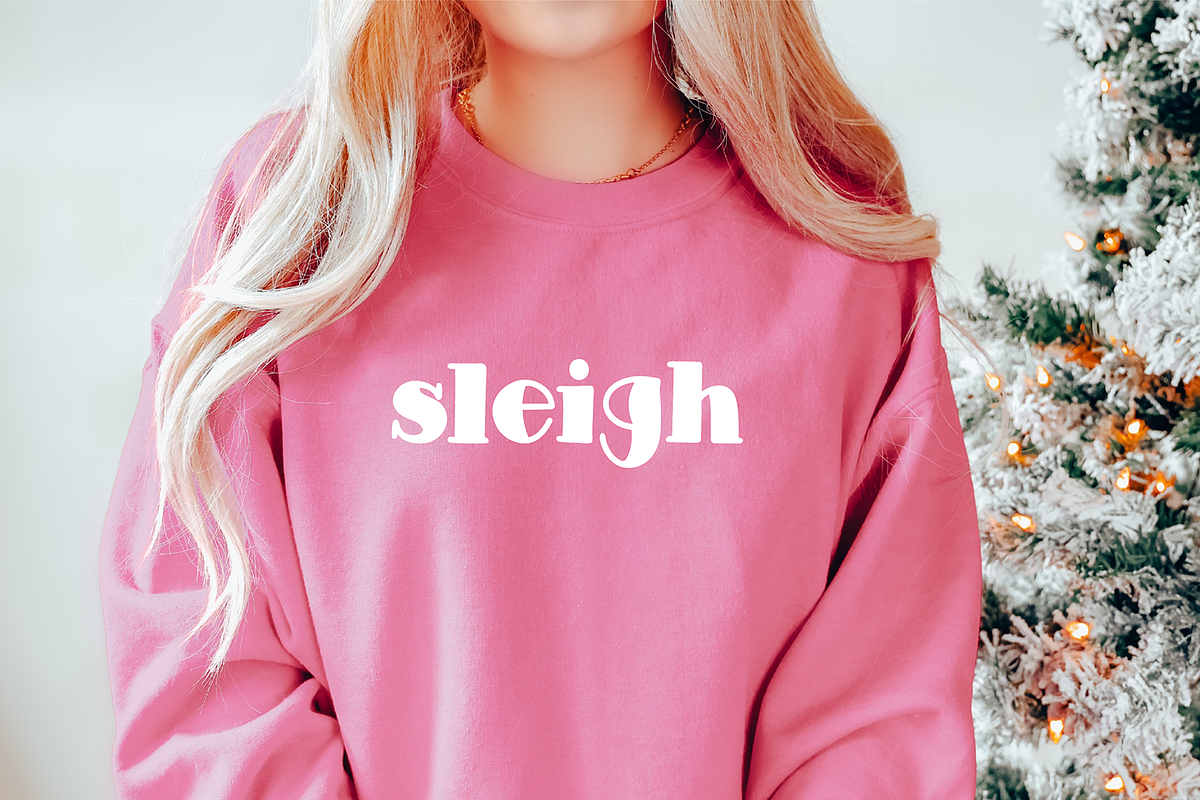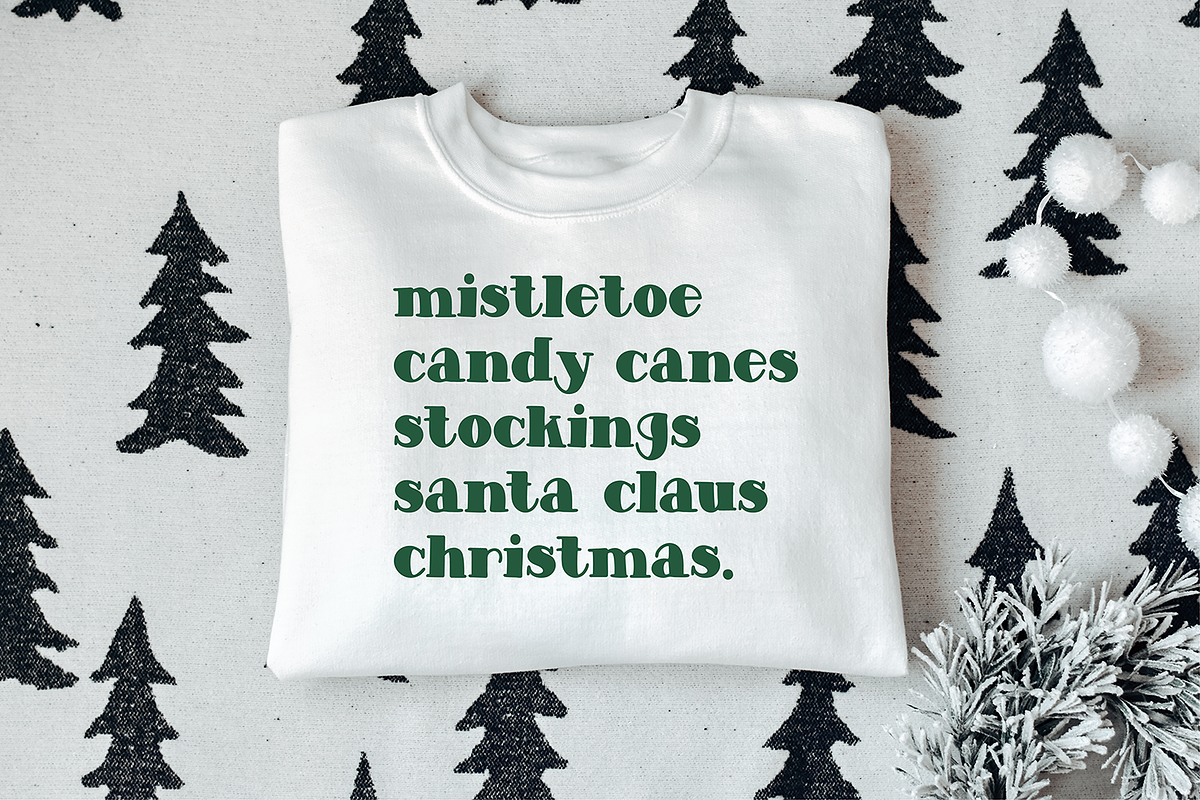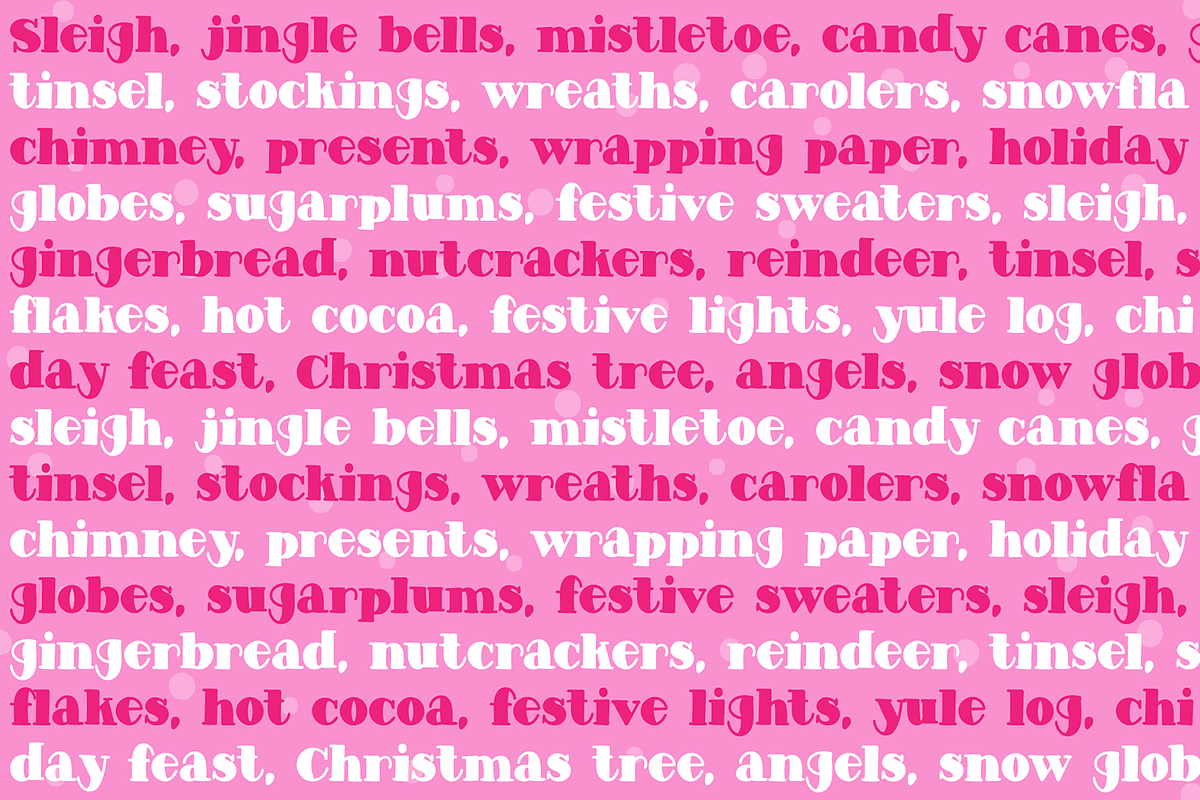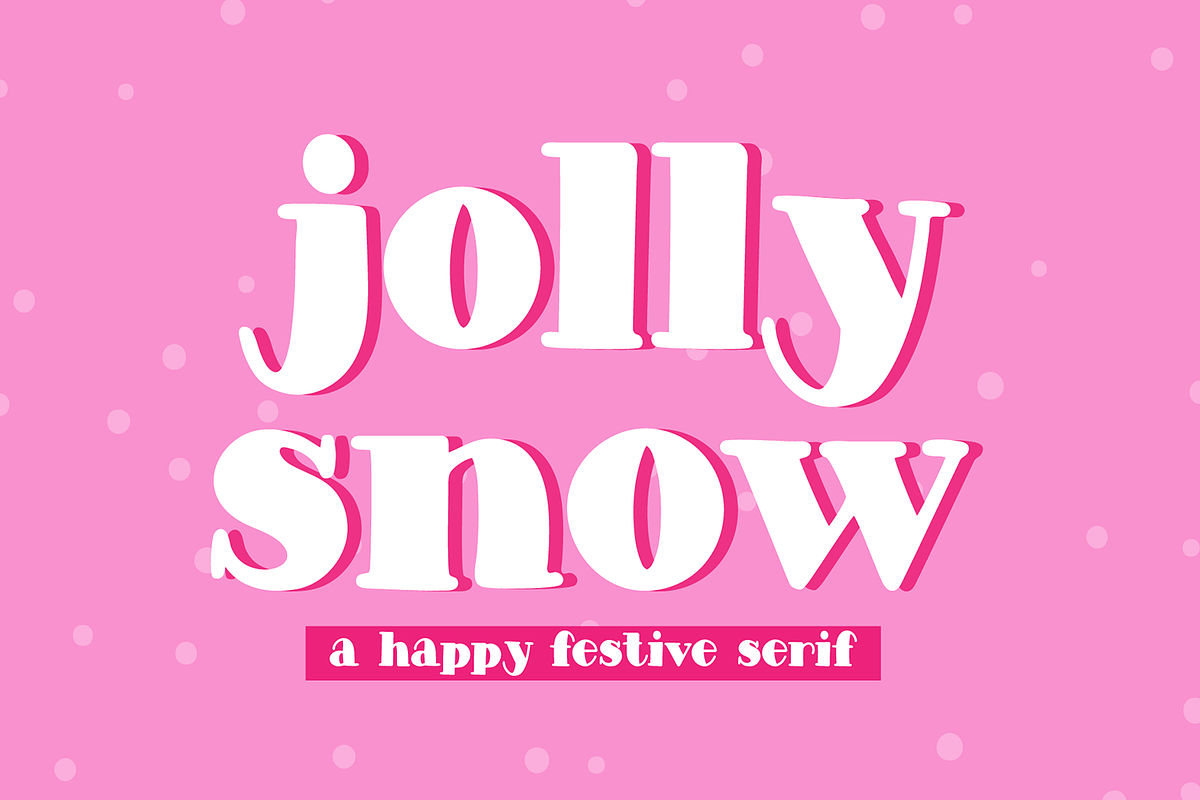
JOLLY SNOW a Vintage Christmas Serif
"Jolly Snow" a hand-lettered serif Christmas font.
Jolly Snow is perfect for your holiday projects. Use it for Christmas cards, winter crafts for decor and more! This font includes numbers and basic punctuation.